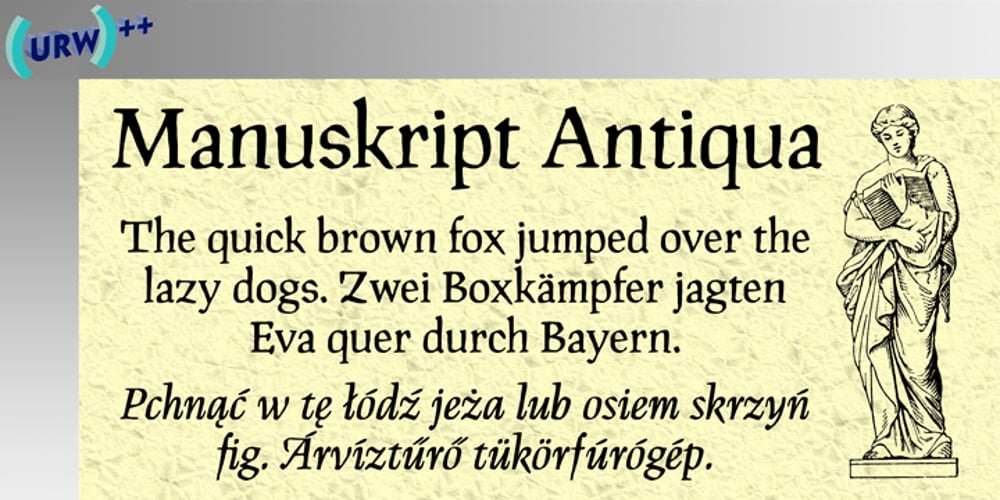
Manuskript Antiqua Font Family was designed by Ralph M. Unger and published by profonts. Manuskript Antiqua contains 2 styles and family package options. Monument is a titling version of Manuskript Antiqua, originally designed by Oldrich Menhart in 1952. Ralph M. Unger, who also redesigned Menhart’s Manuskript Antiqua, redrew, completed and digitally remastered Monument for profonts. Monument is also available as part of URW’s Manuskript Antiqua volume.